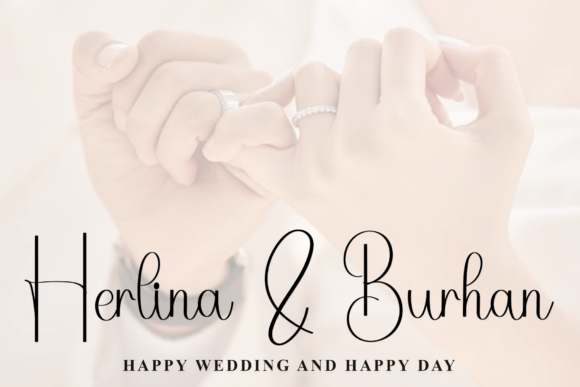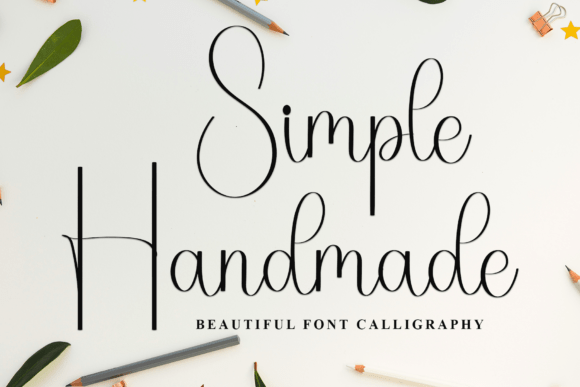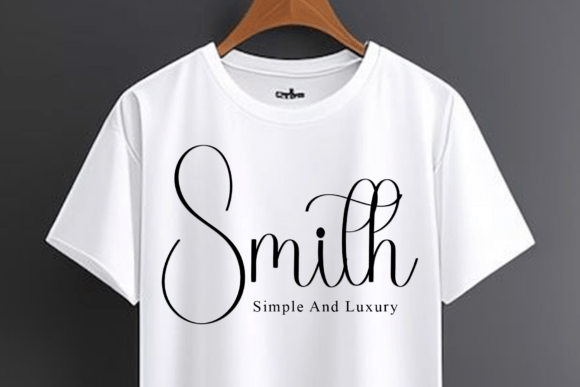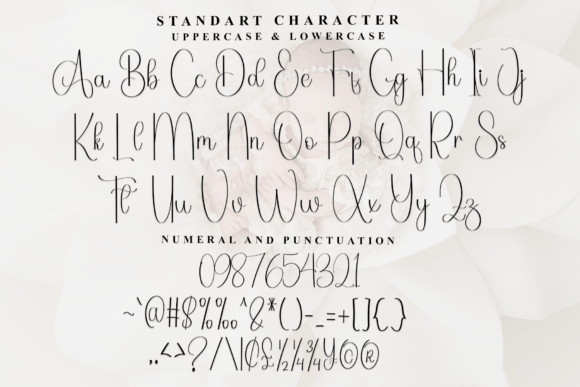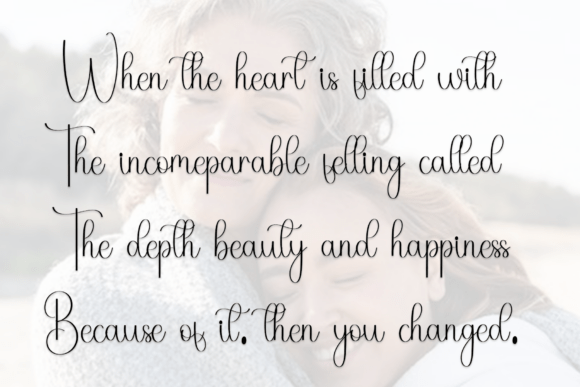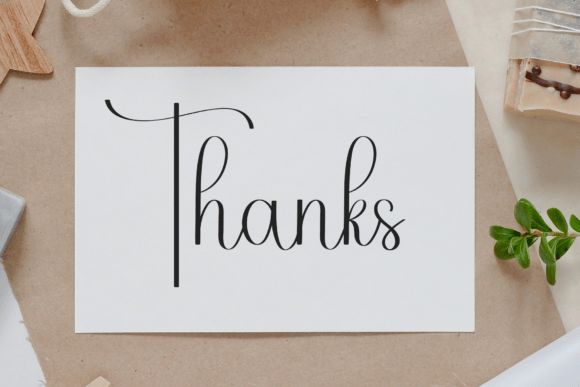
Discover the Beauty of Blackboard Font: Elevate Your Designs with a Unique Touch
In the world of typography, fonts play a crucial role in making designs stand out. One such font that has gained attention for its distinctive and eye-catching appearance is the Blackboard Font. Designed with a soft, unique touch, this beautiful font is perfect for designers, crafters, and creative professionals looking to add a special character to their projects.
The Distinctive Features of Blackboard Font
Blackboard Font boasts distinctive strokes that give it a special character, making it both meaningful and versatile for future use. Its unique design allows it to be used across various platforms and applications, making it a valuable asset for any designer or crafter. Whether you’re working on a design project, craft, or other creative work, this font is sure to enhance your creations and make them appealing to a wide range of audiences.
Key Benefits of Using Blackboard Font
- Versatility: Blackboard Font is perfect for a wide range of design projects, crafts, and creative works. Its unique touch and distinctive strokes make it suitable for various artistic and creative fields.
- Natural Font Style: Blackboard Font features a natural font style that adds an organic touch to designs, making them more appealing to audiences.
- Variety of Characters: With a range of characters, Blackboard Font offers designers and crafters the flexibility to experiment with different styles and designs.
Applications of Blackboard Font
Blackboard Font is ideal for a wide range of products and design projects, including:
- Design Projects: Use Blackboard Font to add a unique touch to your design projects, such as brochures, posters, and business cards.
- Crafts: This font is perfect for crafters who want to add a personal touch to their handmade products, such as cards, invitations, and scrapbook pages.
- Digital Art: Blackboard Font can be used to create stunning digital art, including illustrations, graphics, and animations.
- Branding: This font can be used to create a distinctive brand identity, making your brand stand out from the competition.
Tips for Using Blackboard Font Effectively
To get the most out of Blackboard Font, here are some tips to keep in mind:
- Experiment with Different Sizes: Try using Blackboard Font in different sizes to create visual interest and hierarchy in your designs.
- Combine with Other Fonts: Experiment with pairing Blackboard Font with other fonts to create a unique and eye-catching combination.
- Use on Different Backgrounds: Try using Blackboard Font on different backgrounds to see how it interacts with various textures and colors.
Blackboard Font is a beautiful and eye-catching font that offers a unique touch to design projects, crafts, and creative works. Its distinctive strokes, versatility, and compatibility make it an ideal choice for designers, crafters, and creative professionals. With its natural font style and variety of characters, Blackboard Font is sure to enhance your designs and make them appealing to a wide range of audiences. So why not give it a try and discover the beauty of Blackboard Font for yourself?